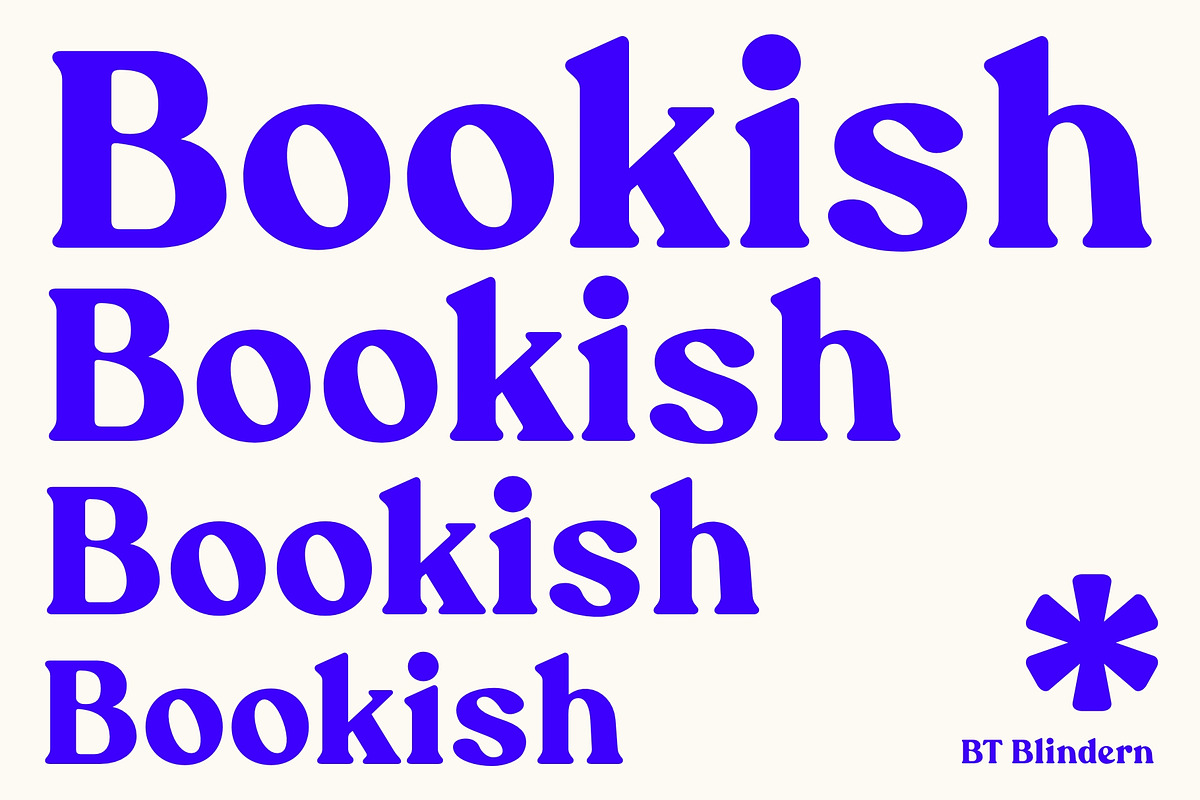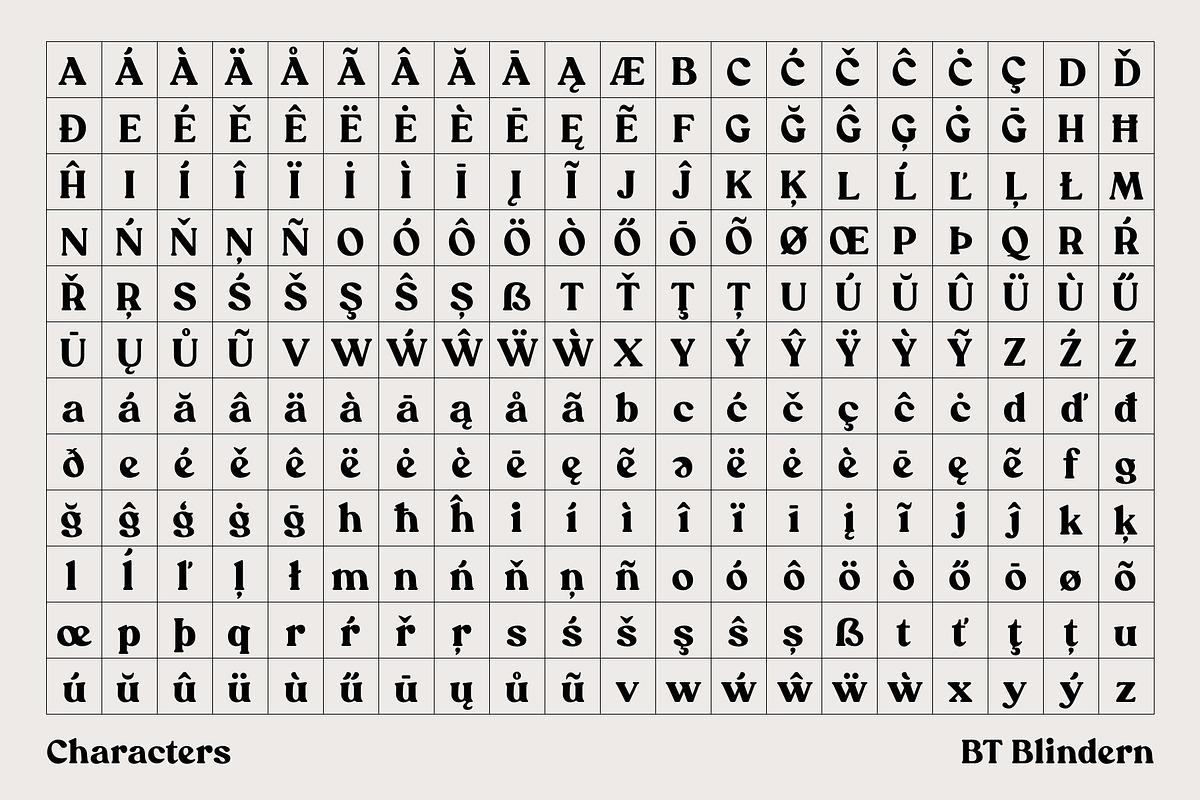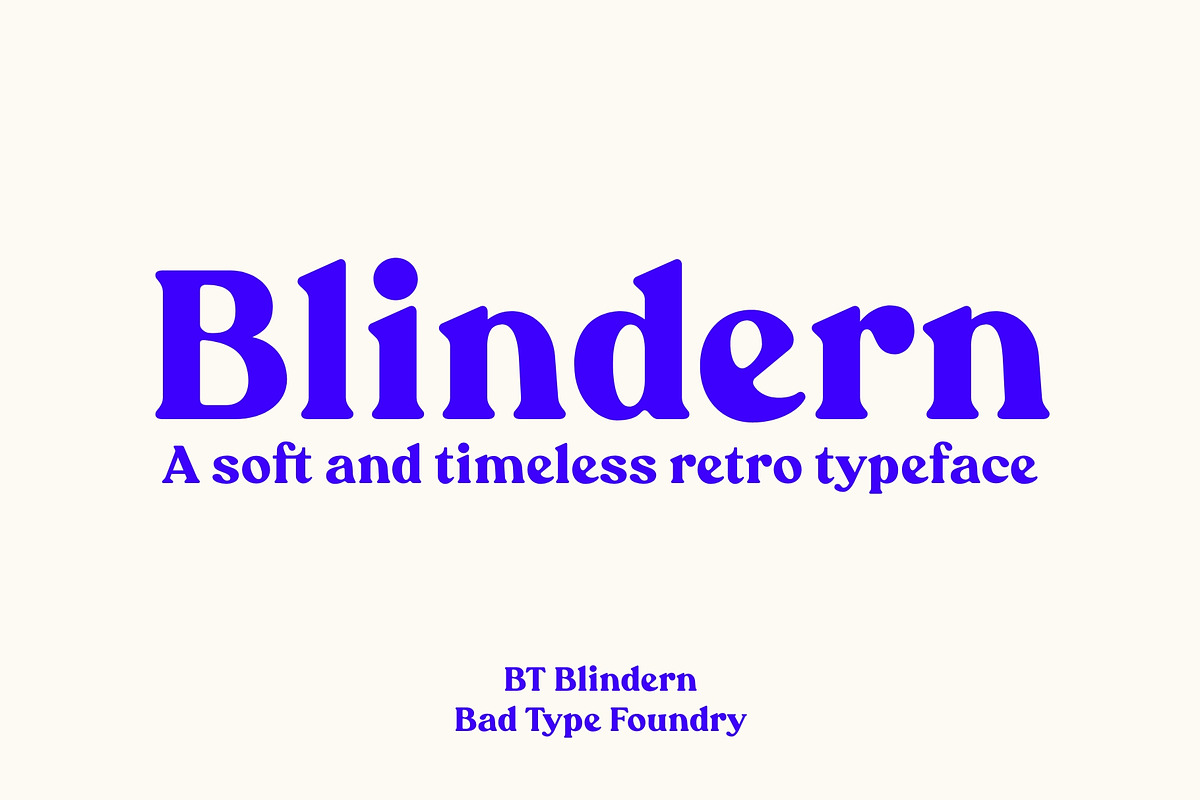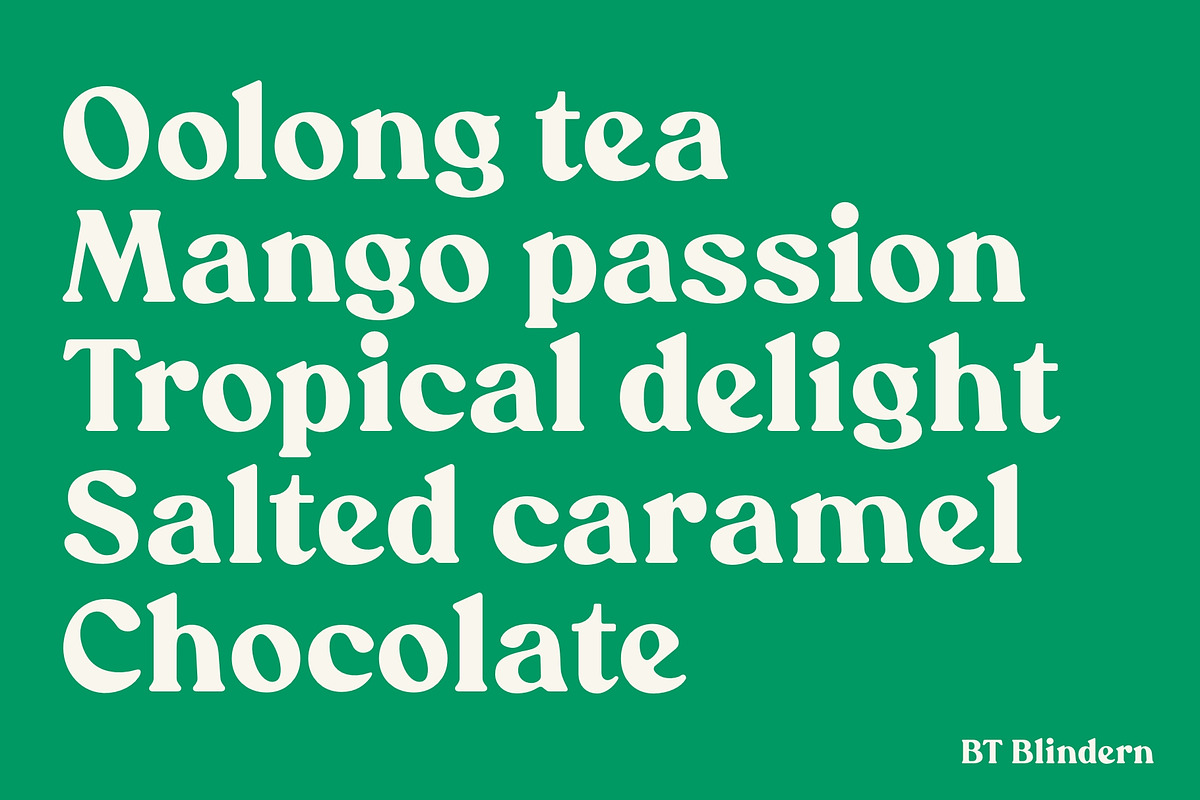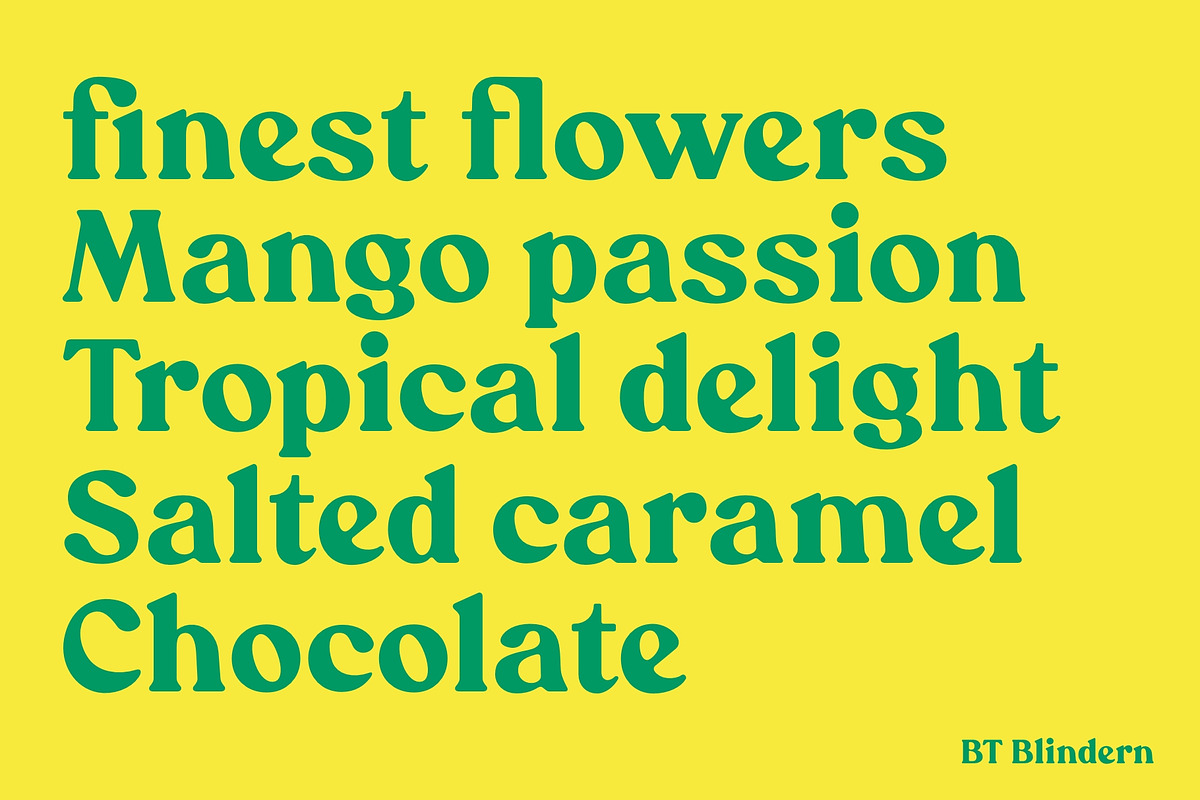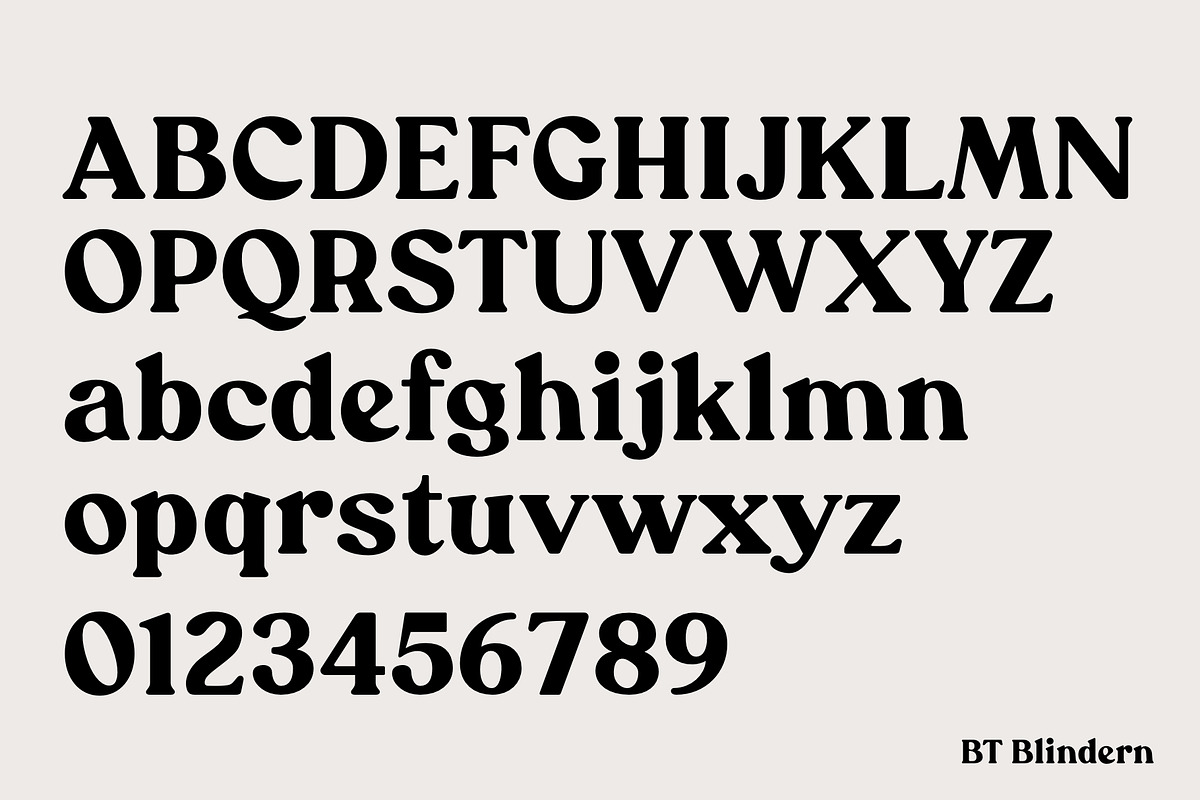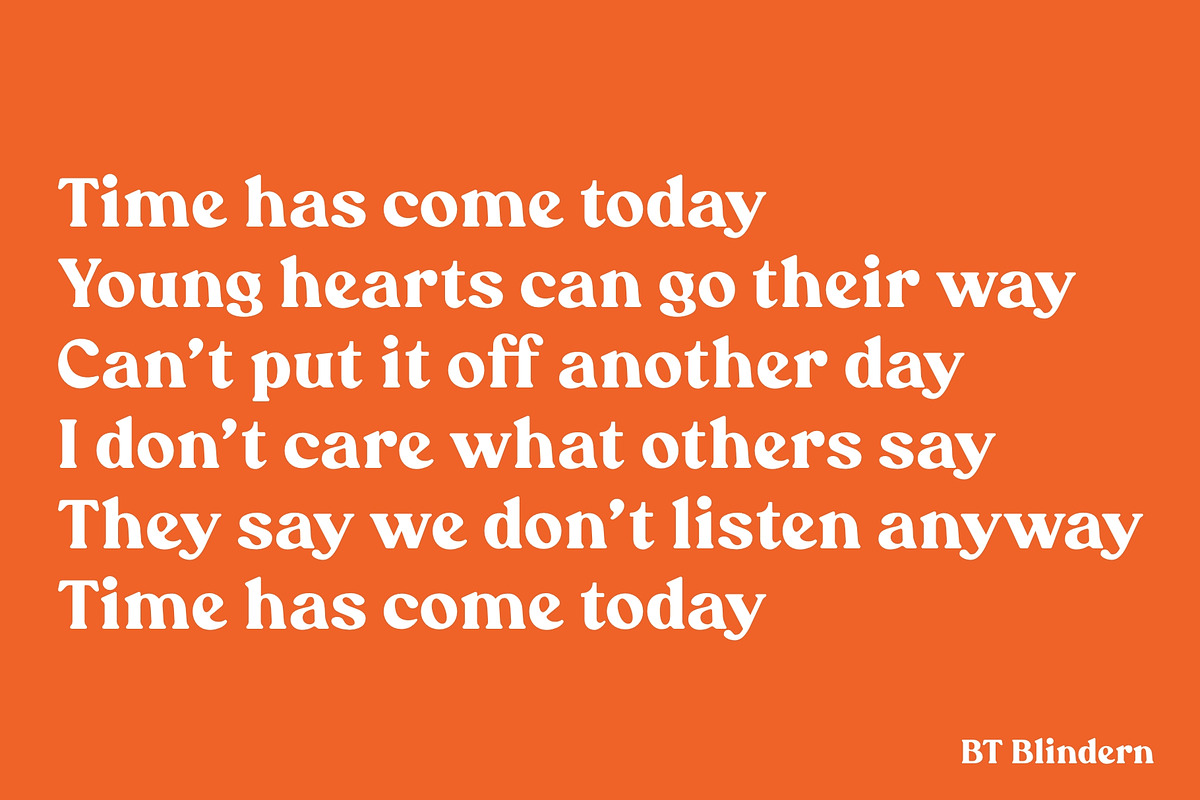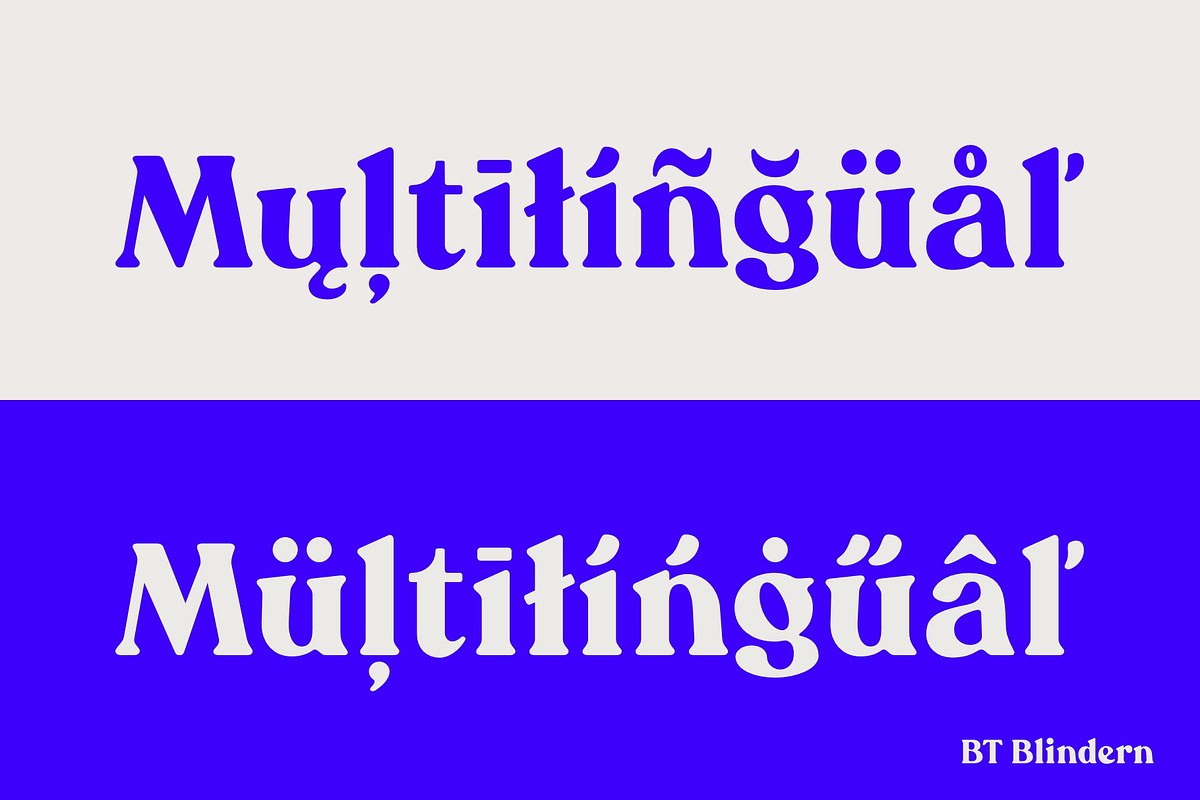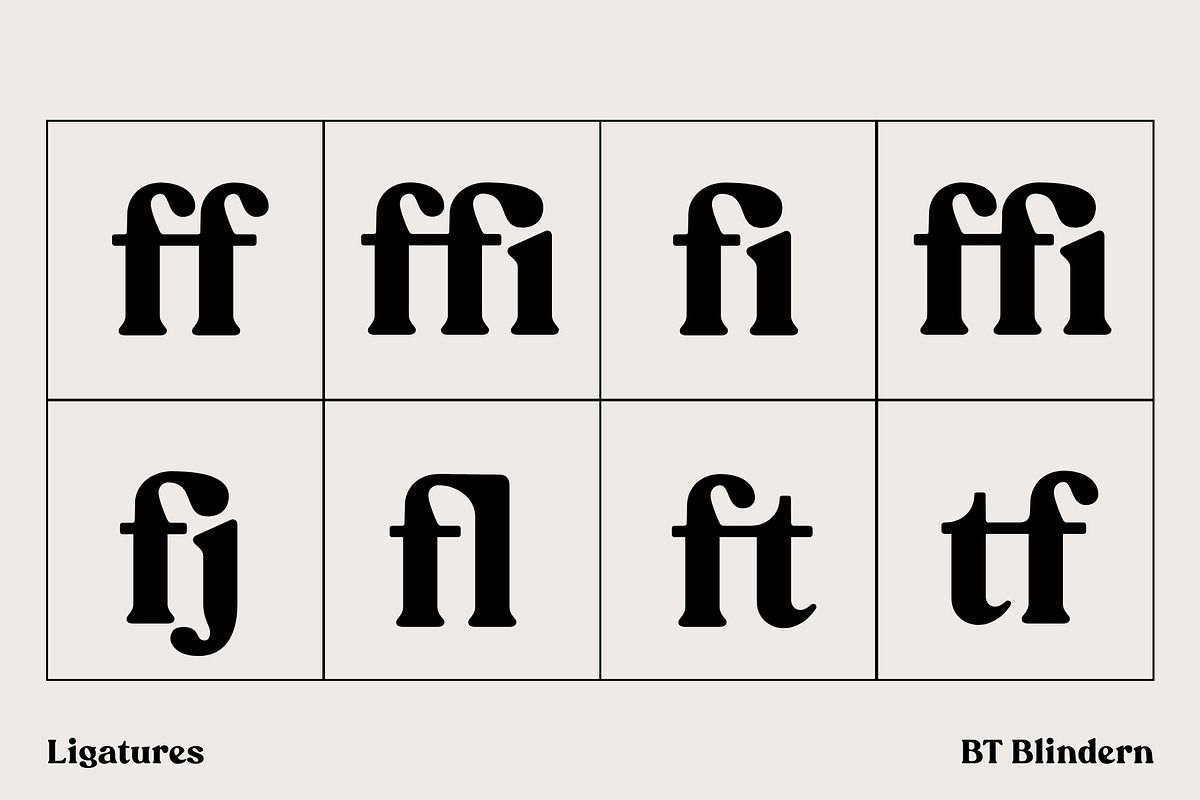
BT Blindern
Drawing inspiration from the century-old classic Cooper Black, BT Blindern offers a bold and robust character with rounded serifs, exuding a soft yet solid presence. BT Blindern delivers a timeless and approachable aesthetic, making it ideal for product packaging, display purposes, and a wide range of applications — from t-shirts and band logos to package branding and restaurant menus.